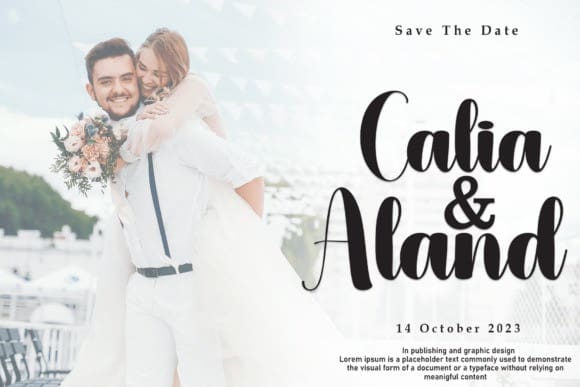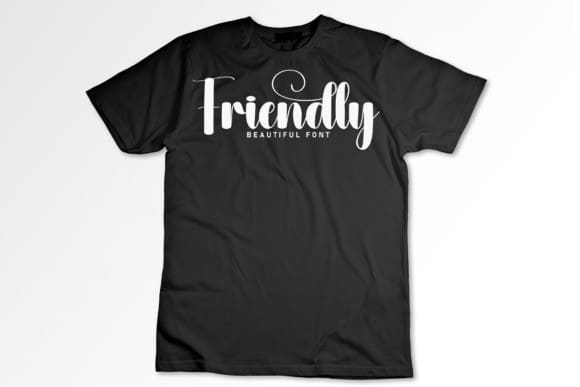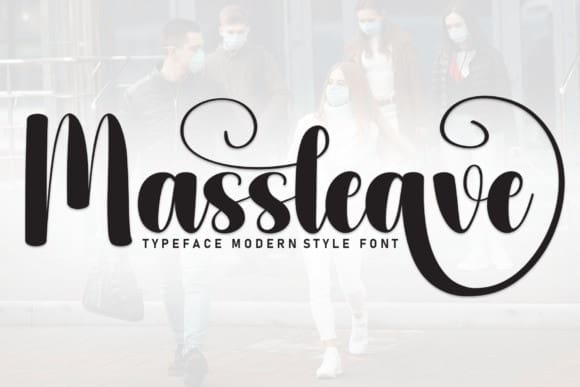
Massleave Script Font
Massleave Script Font is a bold and impactful display typeface that makes a statement with its commanding presence. With its strong, heavy letterforms and assertive lines, this font demands attention. Perfect for protest signs, activist campaigns, and bold headlines, Massleave Font adds a sense of urgency and determination to your designs, empowering your message and leaving a lasting impact on the viewer.